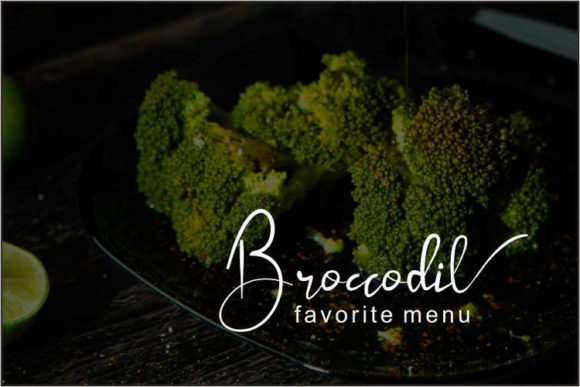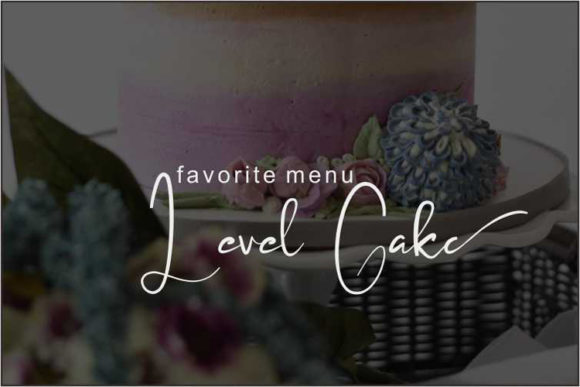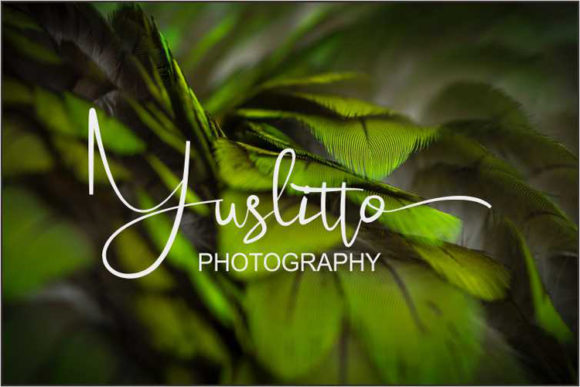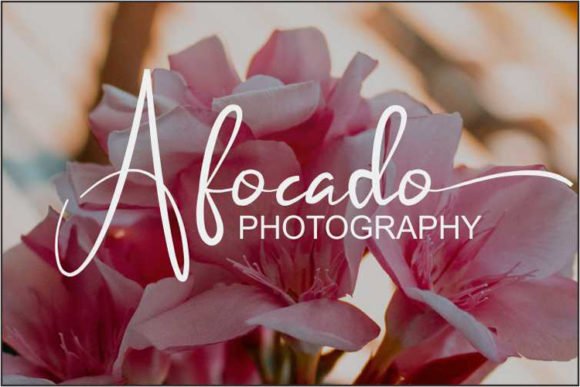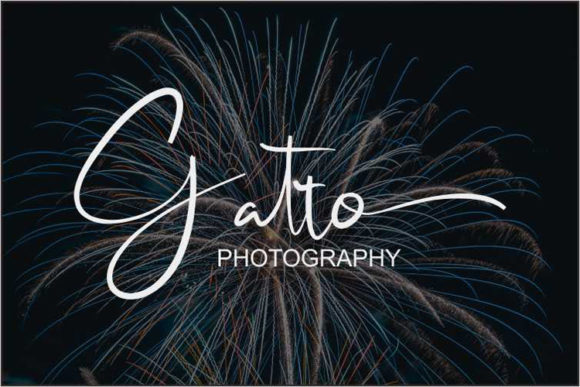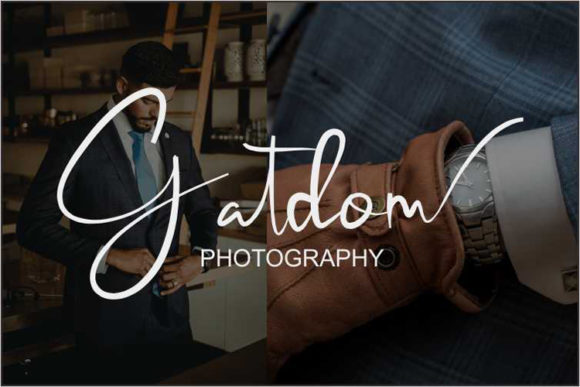
Unleash Your Creativity with the Perfect Font
Have you ever sat down at your desk, staring blankly at a blank sheet of paper, waiting for inspiration to strike? It’s a familiar feeling for many creatives, but what if we told you that the right font could be the spark you need to bring your ideas to life?
Enter the Celosia Font, a stunning calligraphy font that’s perfect for adding a touch of elegance and sophistication to your designs. Whether you’re creating invitations, greeting cards, posters, or quotes, the Celosia Font is sure to make your work stand out. With its modern style and versatility, this font is a valuable asset for designers looking to elevate their projects and take their creativity to the next level.
Celosia Font Key Features
- Font Family: Celosia Font
- Font Size: 8,000+ glyphs, including Latin, Cyrillic, Greek, and Devanagari scripts
- Resolution: Supports high-resolution displays with scalable vector graphics (SVG) technology
- Unique Characteristics: Celosia Font features a unique blend of modern and traditional elements, with intricate details and ornate flourishes
Celosia Font Review
Overall, I think the Celosia font has some unique qualities that set it apart from other fonts. ✨ The use of curved lines and irregular shapes creates a distinctive and eye-catching aesthetic. It’s perfect for designers looking to add some visual interest to their projects.
One of the standout features of Celosia is its versatility. ✨ It can be used for a wide range of applications, from headlines and titles to body text and even logos. It’s also available in multiple weights and styles, making it easy to customize to suit your needs.
However, there are some limitations to consider. ⚠️ The font can be difficult to read at small sizes, and the irregular shapes can make it challenging to use in situations where clarity is paramount. Additionally, the font may not be suitable for use in body text, as it can be tiring to read in large quantities.
Overall, I think the Celosia font is a great choice for designers looking to add some flair to their projects. Just be mindful of its limitations and use it thoughtfully.
- Unique and eye-catching aesthetic
- Highly versatile
- Available in multiple weights and styles
- May be difficult to read at small sizes
- May not be suitable for body text
Celosia Font Practical Application Guide
Getting the Most Out of Celosia Font
Use Celosia Font for headings, titles, and other decorative text elements.
Pair Celosia Font with a sans-serif font for body text to create a visually appealing contrast.
Experiment with different font sizes, colors, and combinations to find the perfect look for your design.
Celosia Font is ideal for:
Food and restaurant menus
Travel and tourism marketing materials
Wedding and event branding
Alternatives to Celosia Font
1. Museo Slab
Museo Slab is a modern sans-serif font designed for body text. It is suitable for use in articles, blog posts, and other written content. Museo Slab has a more rounded and softer appearance compared to Celosia Font, making it ideal for creating a friendly and approachable atmosphere.
Comparison: Museo Slab has a more relaxed feel and is better suited for body text, whereas Celosia Font is more versatile and can be used for titles and headings.
Great Vibes is a modern script font designed to evoke a sense of elegance and sophistication. It is suitable for use in invitations, event branding, and other creative projects. Great Vibes has a more fluid and cursive appearance compared to Celosia Font, making it ideal for adding a touch of whimsy and personality.
Comparison: Great Vibes has a more decorative and ornate feel compared to Celosia Font, which is more modern and versatile.
Can I customize Celosia Font to fit my design needs?
Celosia Font is a highly customizable font, with a wide range of OpenType features and stylistic sets available. You can use design software like Adobe Creative Cloud to access these features and create custom font variations that suit your design needs.